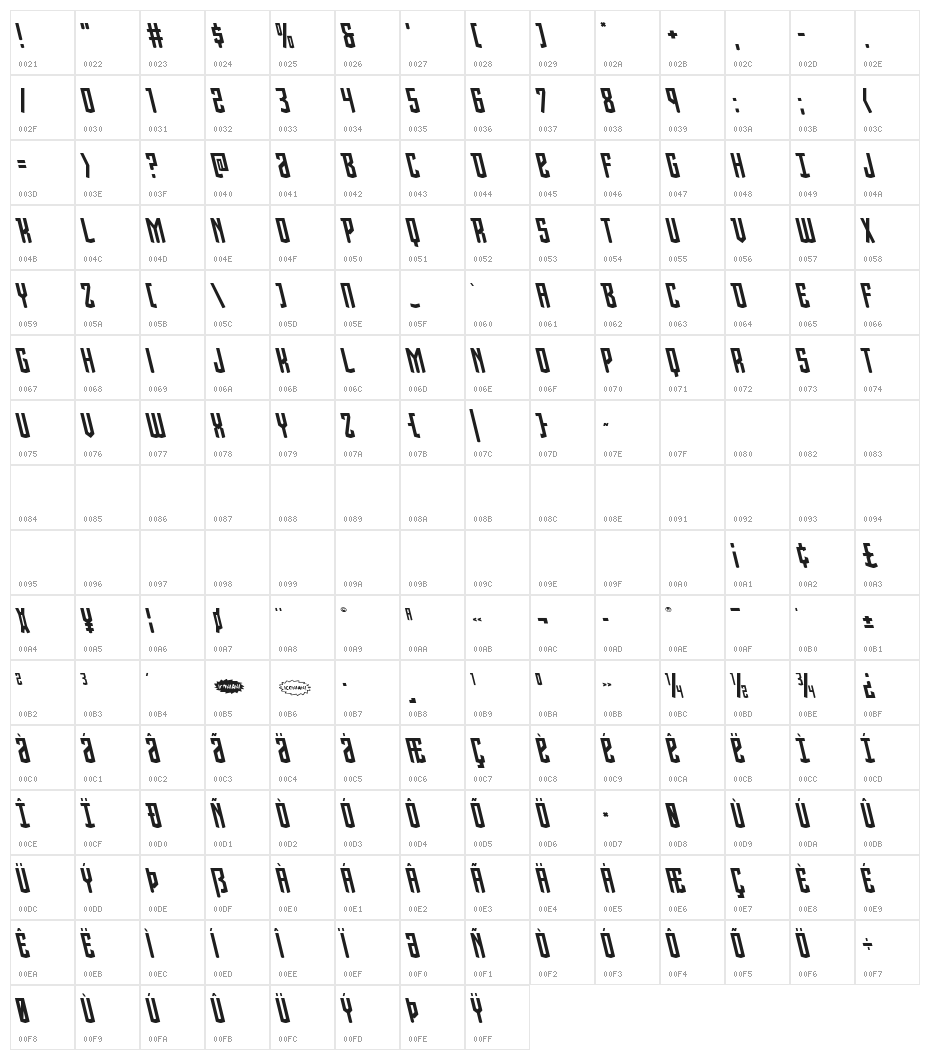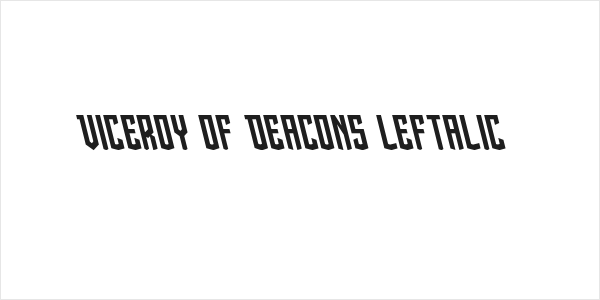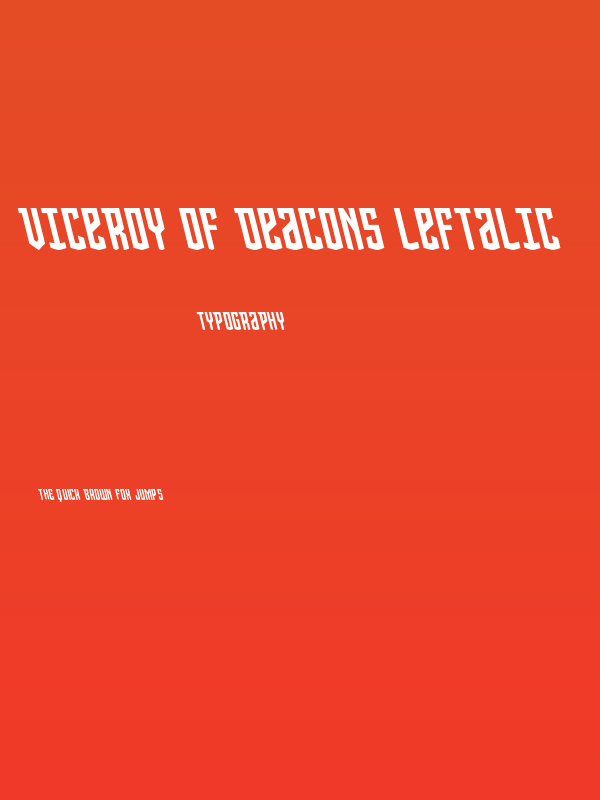
Viceroy of Deacons Leftalic Font
Viceroy of Deacons Leftalic Description
This font features a bold and dynamic style with a distinct slant to the left, giving it a sense of motion and energy. The characters are angular and sharp, with a strong geometric influence that makes them stand out. The uppercase and lowercase letters maintain a consistent style, with the same angular cuts and bold presence. The numbers and special characters follow suit, ensuring a cohesive look across all glyphs. This font is perfect for projects that require a strong visual impact and a modern, edgy feel.
| Proposed Projects | Ideal for posters, logos, and branding materials that need a modern and energetic touch. |